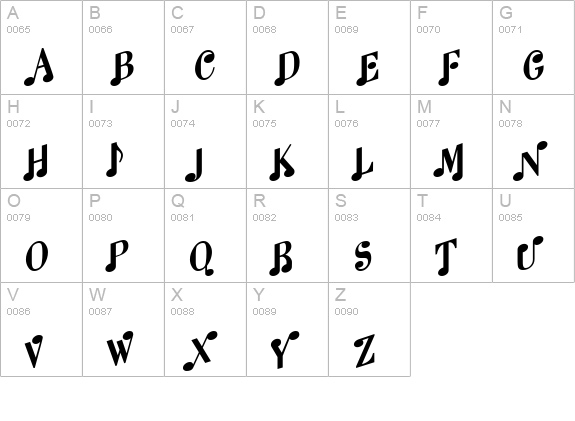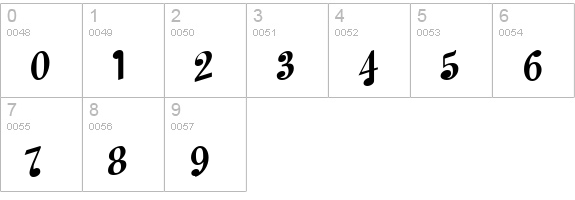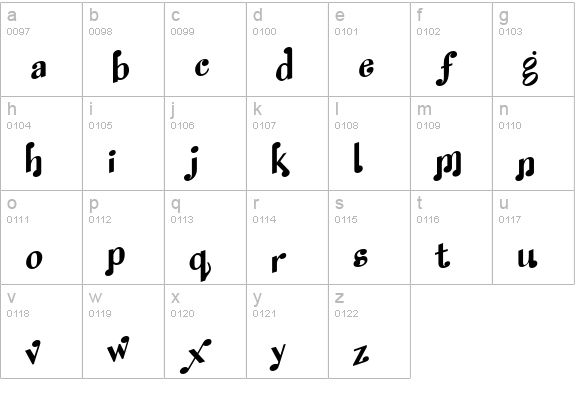
Melody MakerNotes Only Font Details
Introducing Melody MakerNotes Only font, a unique and stylish typeface perfect for adding a touch of musical charm to your designs. This font features intricate musical note-inspired letterforms that will make your text stand out in a creative way. Melody MakerNotes Only font is a versatile choice for a wide range of projects, from music-related branding to event posters and album covers. Its playful and rhythmic design will surely capture the attention of your audience. Best of all, Melody MakerNotes Only font is available for free download at FontsMarket.com. So go ahead and give your projects a musical twist with this eye-catching and expressive font!